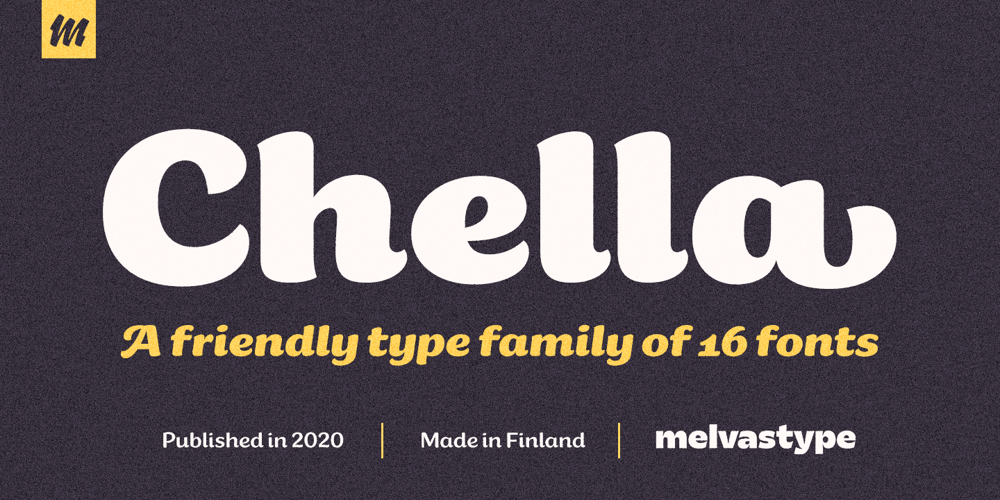
Chella
Chella font
Chella Font Family was designed by Mika Melvas and published by Melvastype. Chella contains 16 styles and family package options. Chella is a friendly display type family of 8 weights and matching italics. Chella has soft forms combined with some sharp edges. It includes swash capitals, end swashes for lowercases and a few options for ascenders and descenders. Chella is a great choice for package design, children’s books and where ever you’ll need a playful and friendly font.